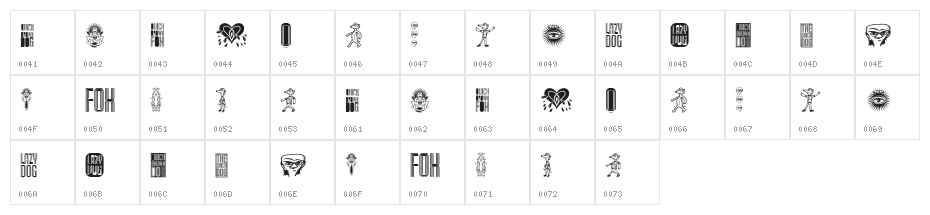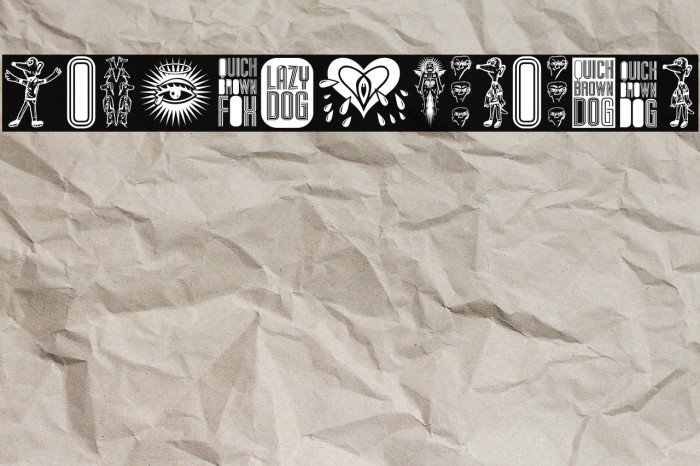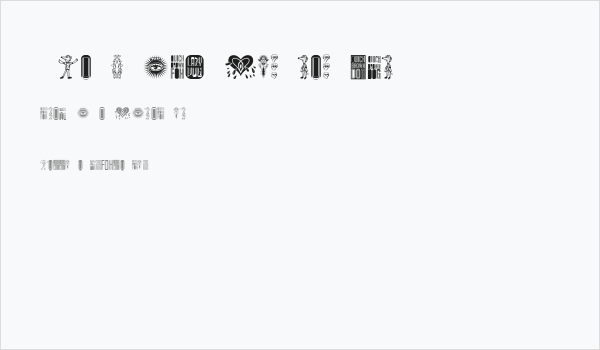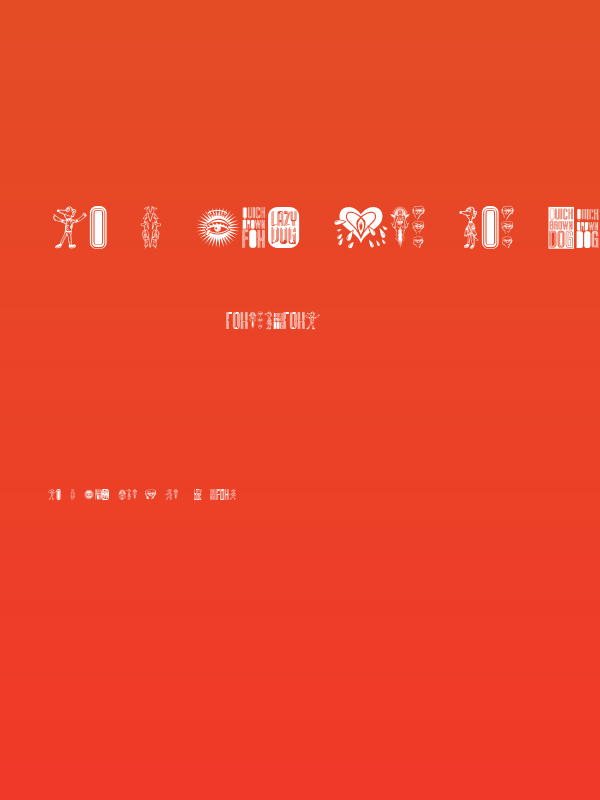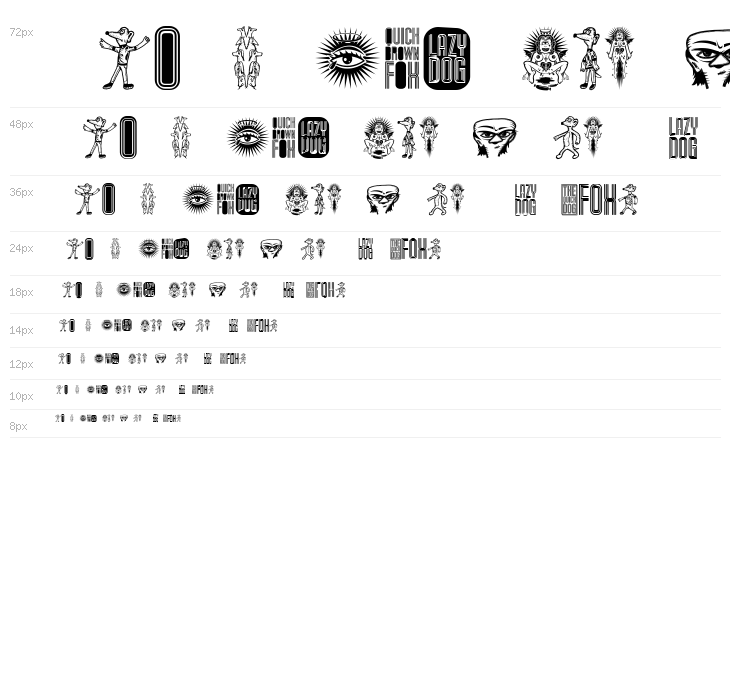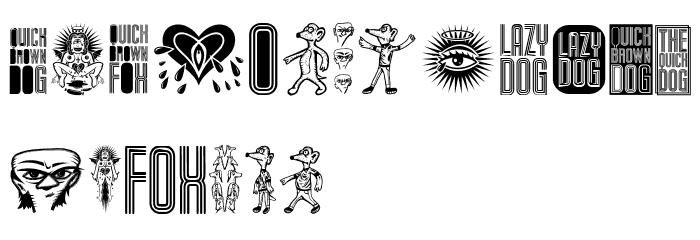
The Quick Dog Regular Font
The Quick Dog Regular Description
This font is a highly decorative and artistic typeface that incorporates a variety of unique and intricate illustrations within its characters. Each letter is creatively designed with elements that resemble vintage tattoo art, featuring bold lines and detailed imagery. The font includes a mix of human figures, animals, and abstract designs, making it visually striking and distinctive. Its playful and whimsical nature makes it stand out, with each character offering a unique visual experience. The font is perfect for projects that require a bold and artistic touch, capturing attention with its elaborate and imaginative style.
| Use Case | Logos, Posters, Artistic Branding |
| Proposed Projects | Ideal for posters, album covers, artistic branding, and any project needing a bold, creative flair. |